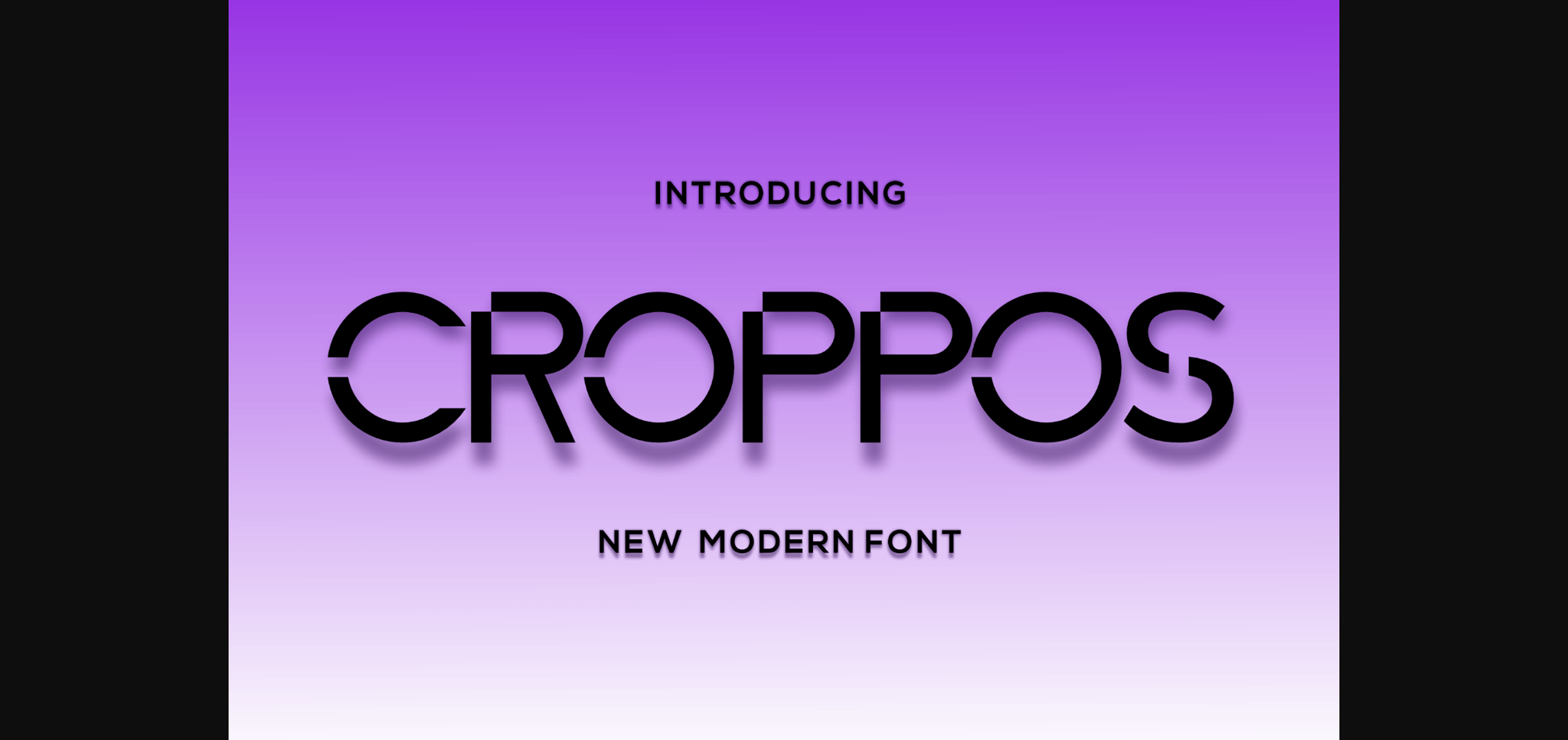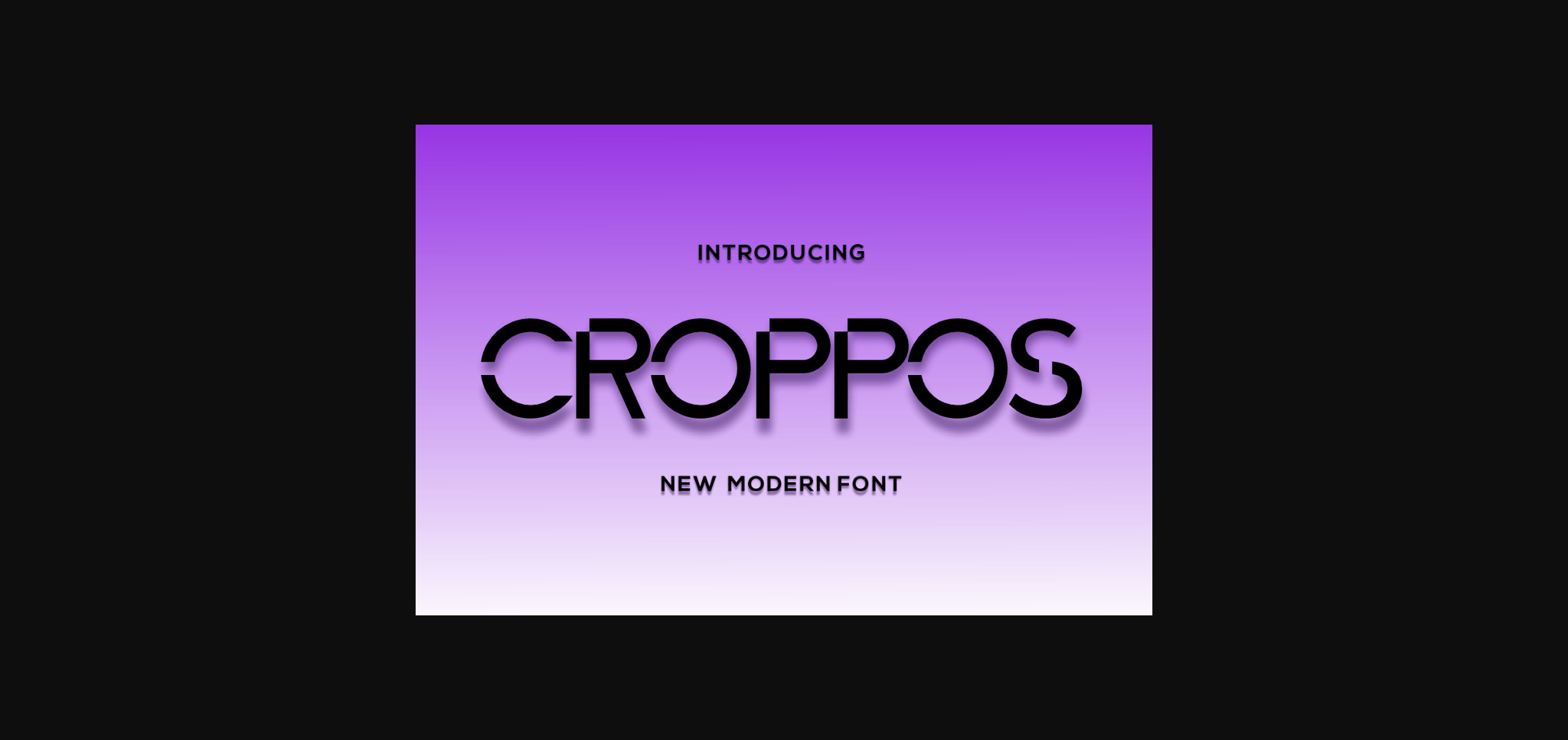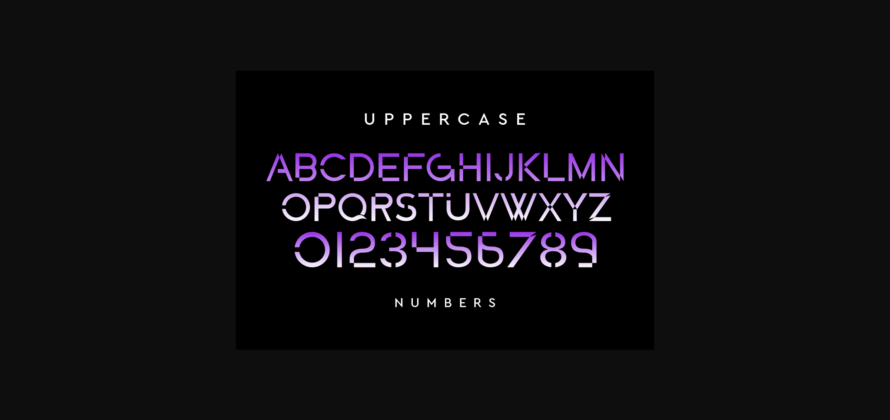
About Croppos Font
Croppos is a modern sans-serif font that feels beautiful, classy, and minimalistic. This font is perfectly suited for a wide variety of projects, such as signature, stationery, logos, wedding, typography quotes, magazine or book covers, website headers, clothing, branding, packaging design, and more.